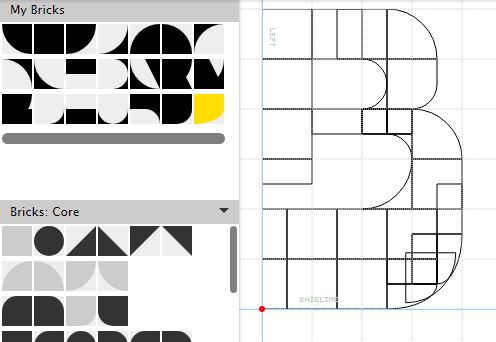
Interesting font, but somehow the same big radius on inner and outer edge disturbs me. It would have been much easier to finish if you used the 2x2 filter.
I like this version of the letter. It is consistent with the letter S, which also has a sharp middle without rounding.
I'll make a second one then
It was more of an aesthetic experiment anyway